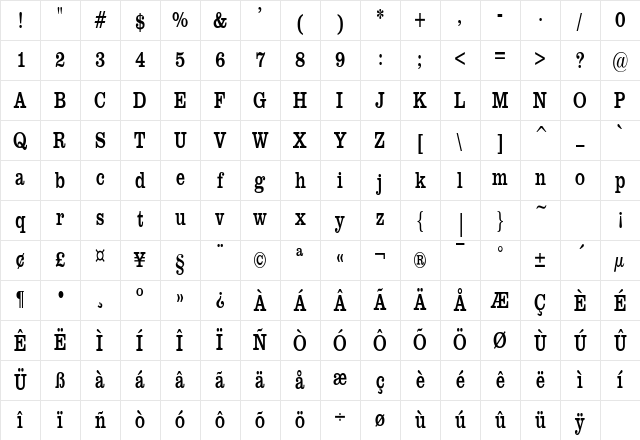
Complete GettysburgCondensed Regular glyph index. Displaying only characters natively supported by GettysburgCondensed Regular font.
GettysburgCondensed is a composed and adaptable typeface that performs quietly and consistently across a wide range of design contexts. Its narrow stance lets it pack a punch even in space-constrained designs.